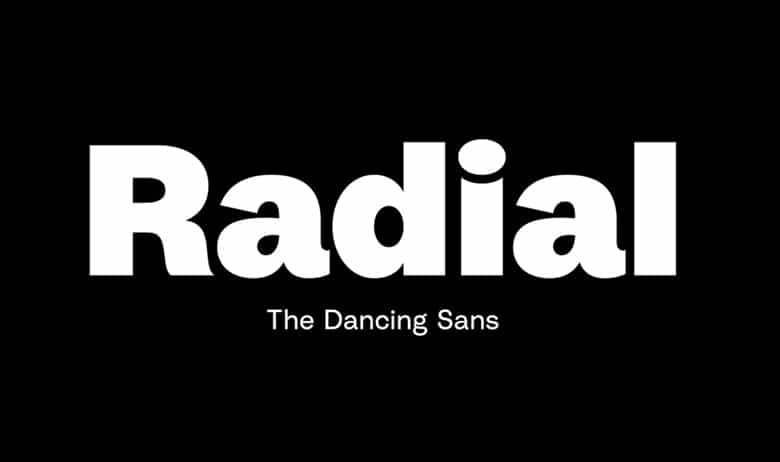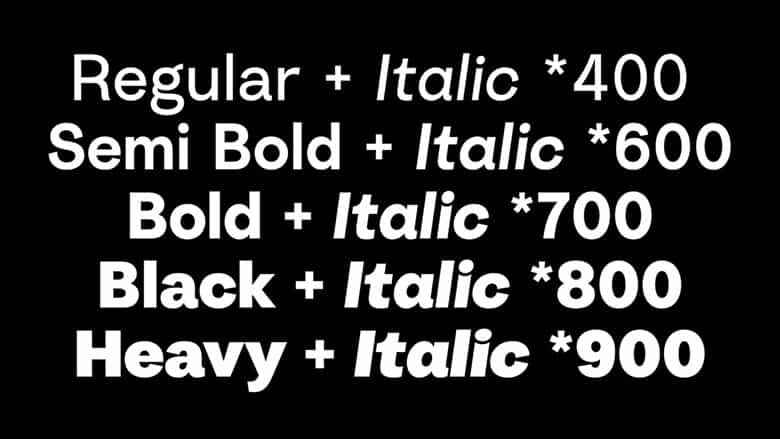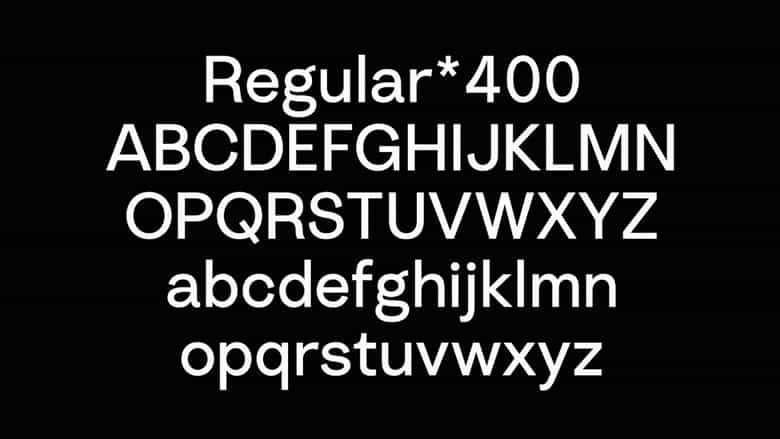
Radial is a geometric sans serif font family that is simple, with high classy designs of neat curves and low x-height. It is somewhat an informal geometry and it covers up a broad range of the tonal variations that are beyond the other conventional sans-serif typography. It looks excellent in the dynamic personality range that is perfectly suitable for both muscular performance and miniature texts.